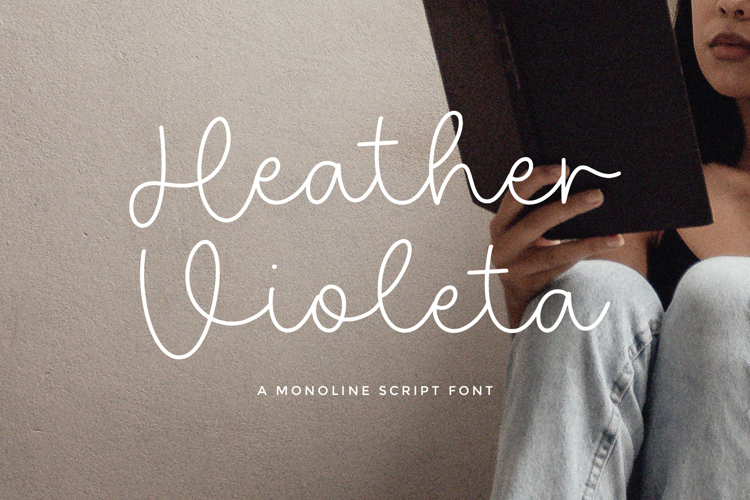
Heather Violeta Font
Heather Violeta Font is a Handwritten script font that is modern and fresh, and will bring a warm and inviting feel to your business. Take advantage of the fonts and experience the magic for yourself.
Heather Violeta is perfect for product packaging, branding project, megeenazine, social media, wedding, or just used to express words above the background.
-Full Set of standard alphabet and punctuation
– Heather Violeta also multilingual support.